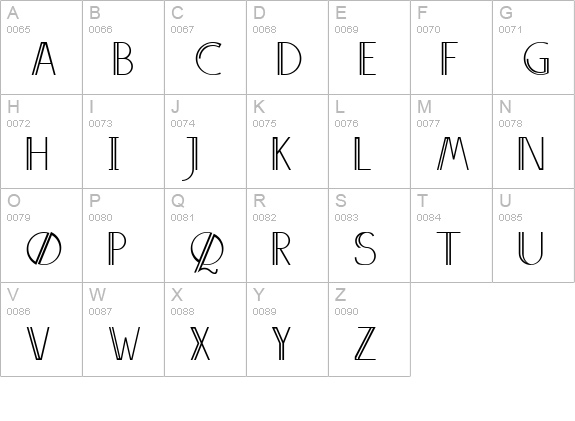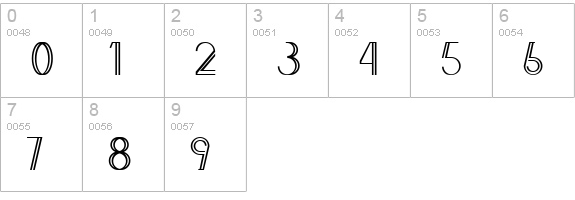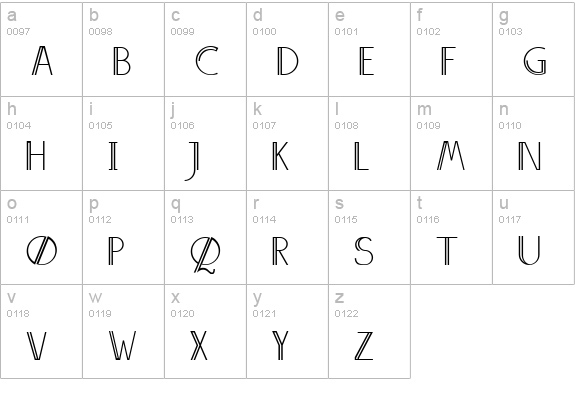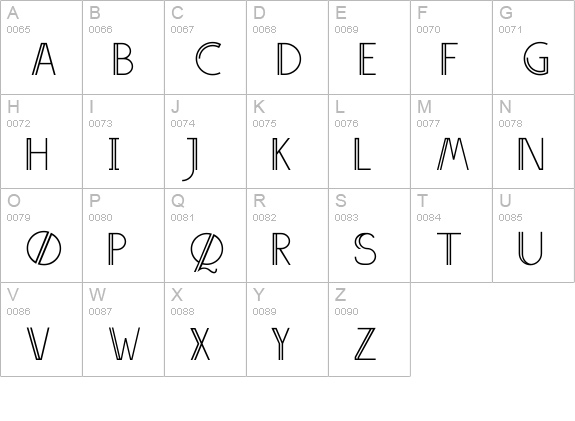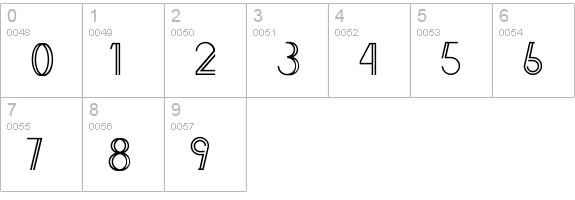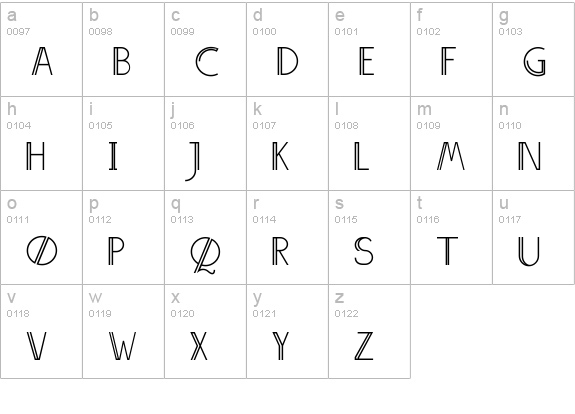
Annivers-Demo Font Details
Introducing Annivers-Demo, a stunning and versatile font that is sure to captivate and inspire. With its elegant and timeless design, Annivers-Demo is perfect for adding a touch of sophistication to any project. This exquisite font features a unique blend of classic and modern elements, creating a harmonious balance that is both visually appealing and highly legible. Its graceful curves and delicate strokes add a touch of elegance to every character, making Annivers-Demo a true work of art. But that's not all - Annivers-Demo is also free! That's right, this extraordinary font is freely available to download at FontsMarket.com. Whether you're a designer looking to elevate your creations or a hobbyist seeking to add a touch of beauty to your personal projects, Annivers-Demo is the perfect choice. Not only does Annivers-Demo offer exceptional aesthetics, but it also provides a seamless user experience. Each character is meticulously crafted with precision, ensuring optimal readability and clarity across various mediums. Whether you're designing a logo, crafting invitations, or creating stunning typography for your website, Annivers-Demo will undoubtedly leave a lasting impression. Its versatility allows it to adapt effortlessly to different styles and themes, making it an invaluable asset in any designer's toolkit. So why wait? Experience the beauty and elegance of Annivers-Demo for yourself. Download this remarkable font for free at FontsMarket.com and unlock a world of creative possibilities. Elevate your designs and make a statement with Annivers-Demo - the font that combines timeless beauty and the freedom to create.